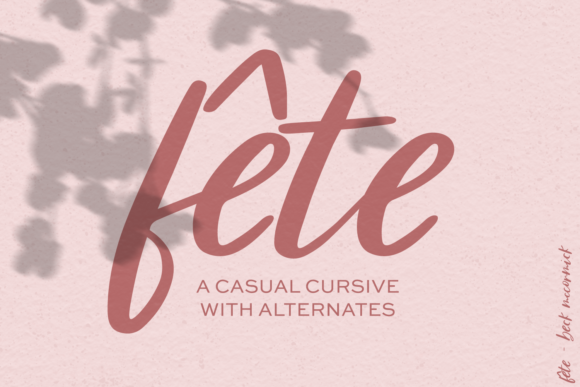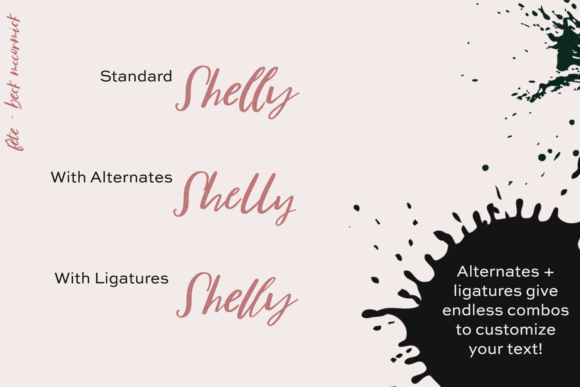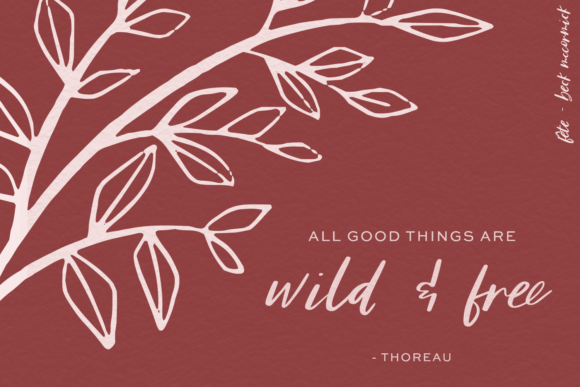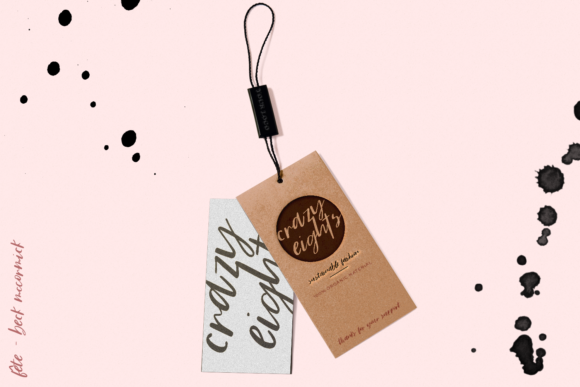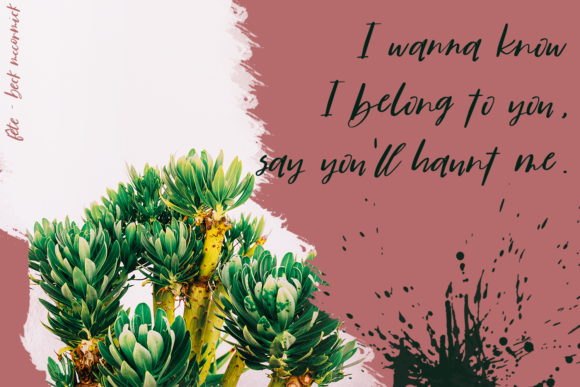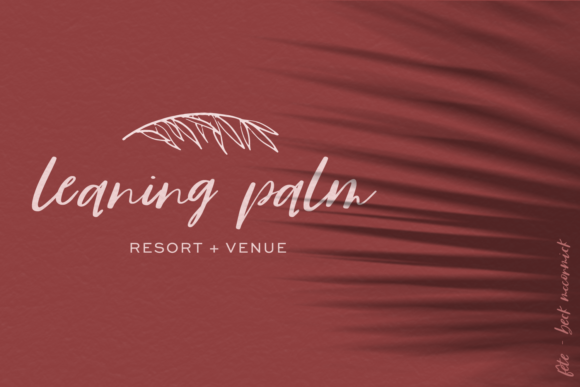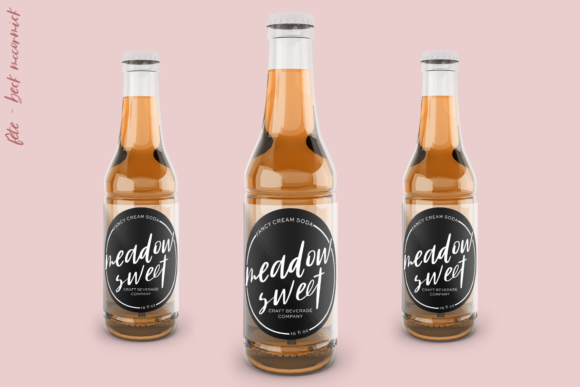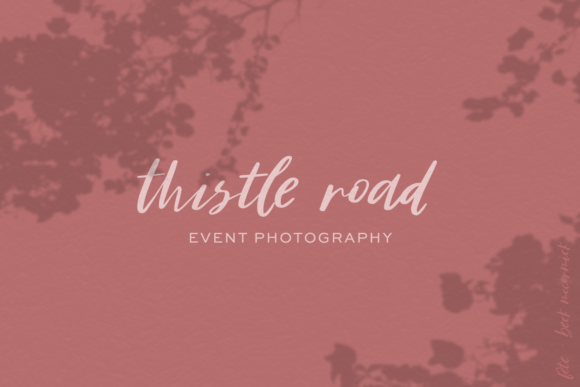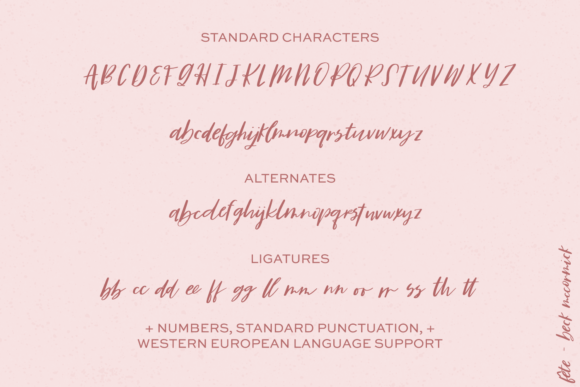
Fête Script Font
About Fête Script Font
The Fête is a bold script font. It has a striking look which will make any design stand out.
It can be used for logos, posters, headlines, covers, and much more!